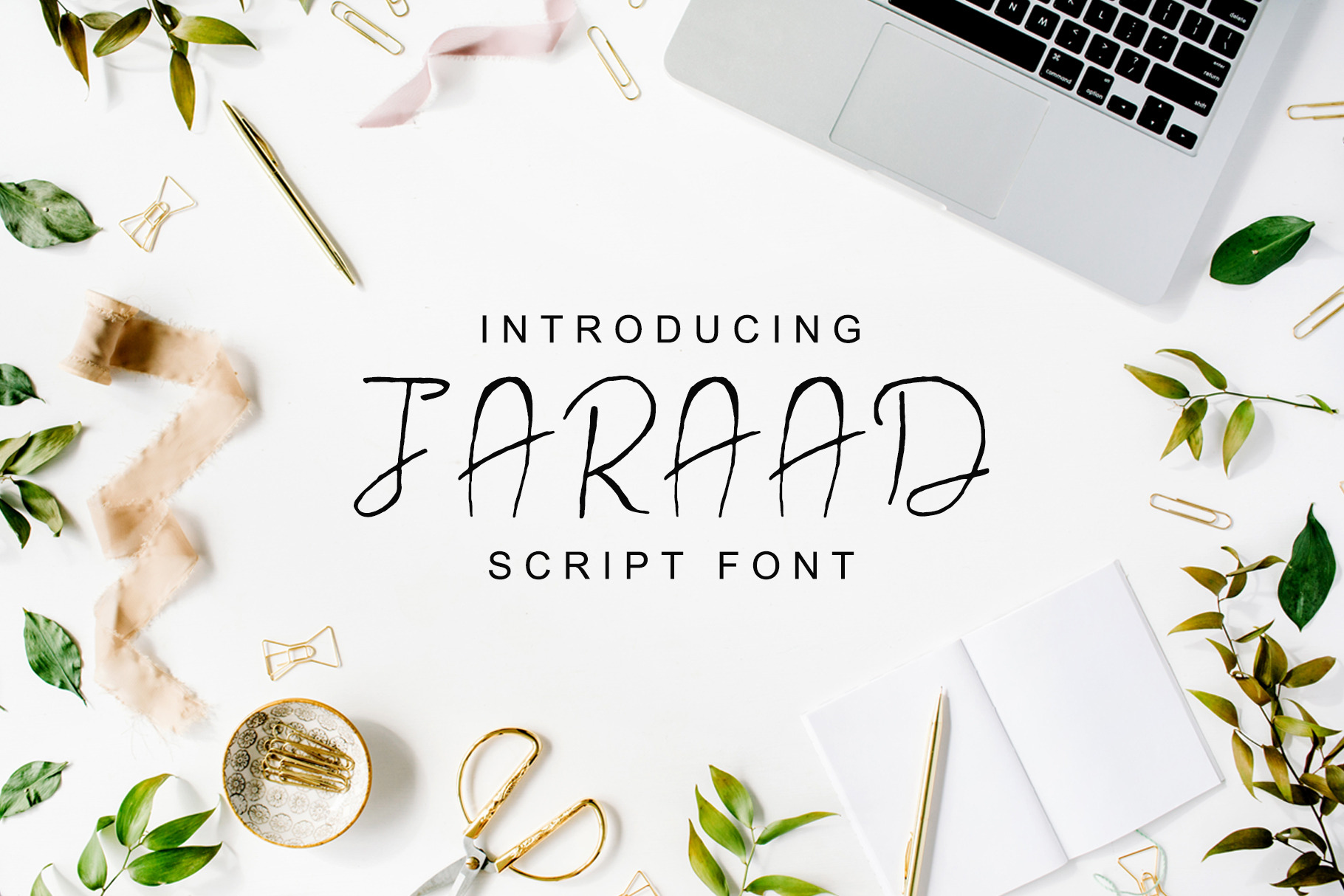
Jaraad Script 4 Font Family Pack
Jaraad Script Typeface is a beautiful handwritten font which contains 4 weights and that is specifically designed for minimal projects. It looks impressive for branding, websites, clean designs, logos, headlines, banners and templates etc. It is in uppercase style only.
Included Features:
- Font Weight: Regular, Italic, Outline and Bold
Jaraad Font Features:
- Uppercase Letters
- Lowercase Letters